Vintage is trendy. The past of fashion, design, and art are so rich graphically that the past will certainly stay trendy for a while. In graphic design, one of the best ways to give a look-and-feel of a given period is to choose the right font. In this post we take a look at fonts of the earliest decades of the 20th century.
1. Odalisque
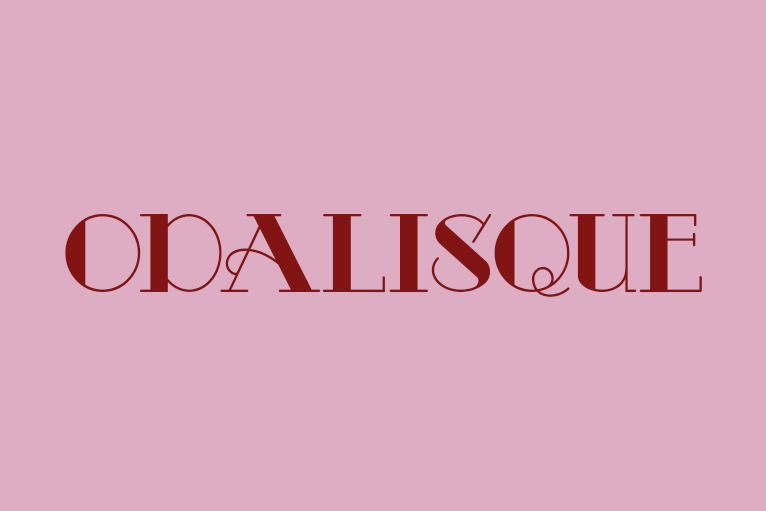
2. Andes
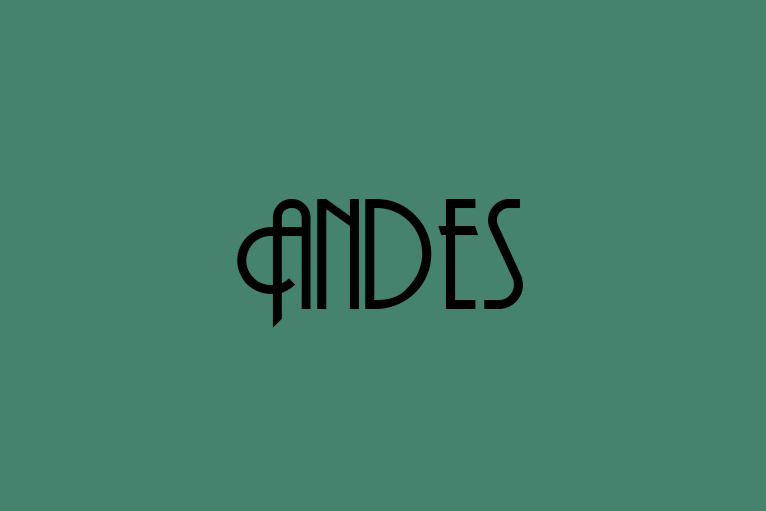
3. Showtime
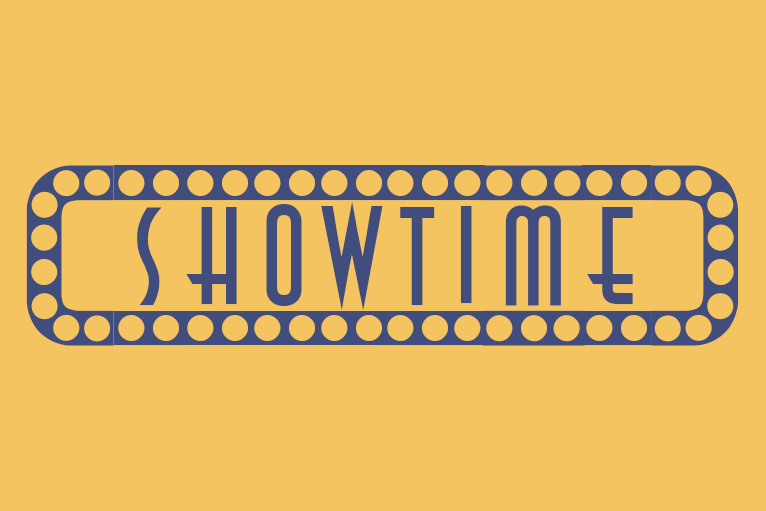
4. Riesling
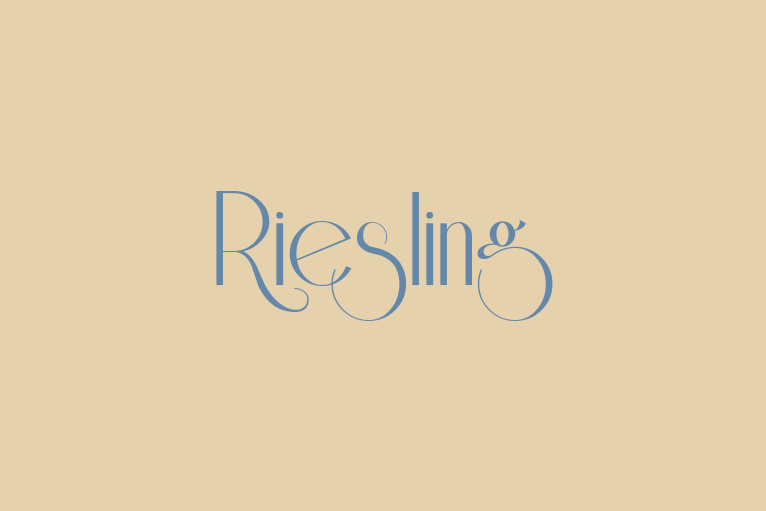
5. Market Deco